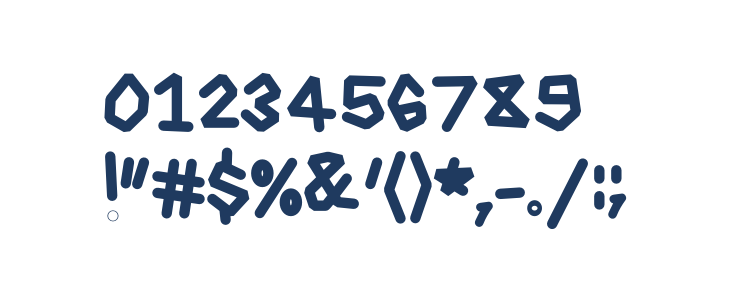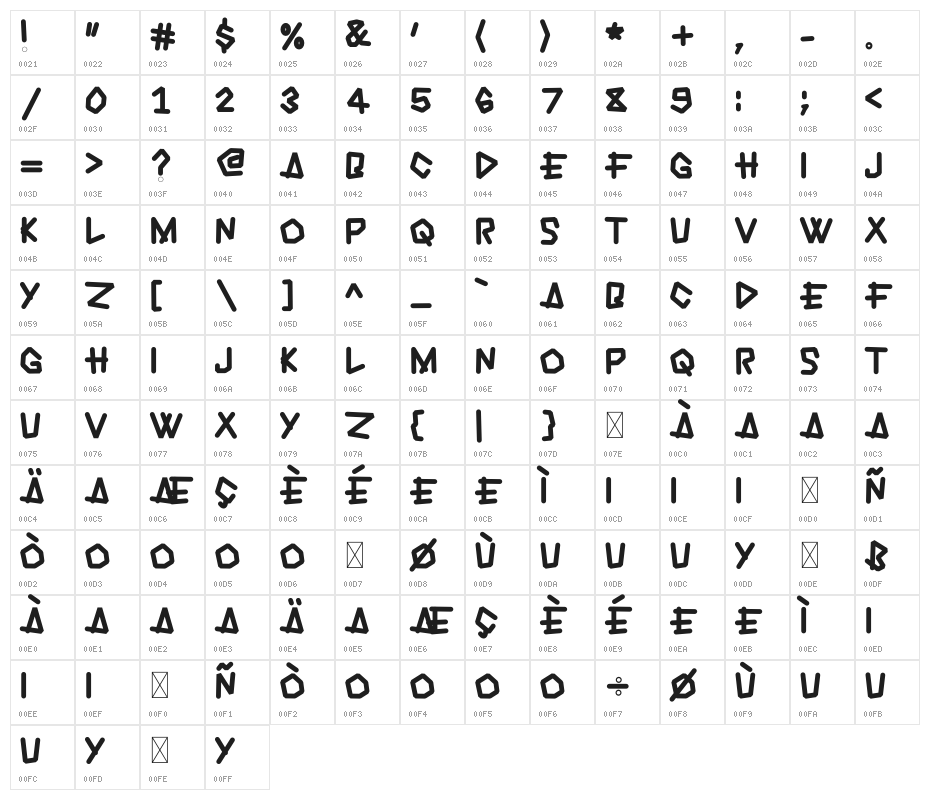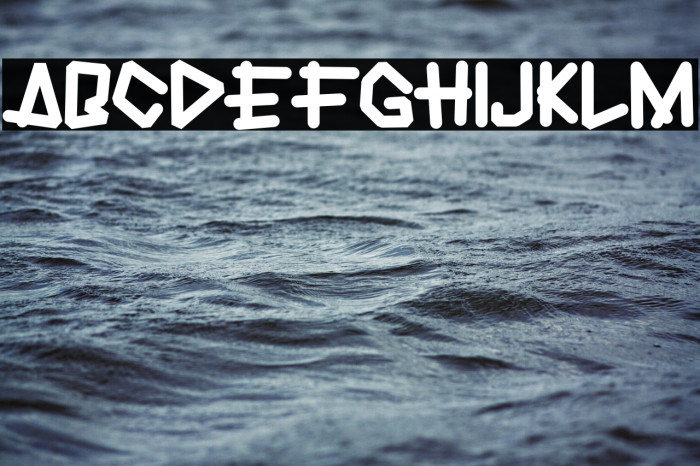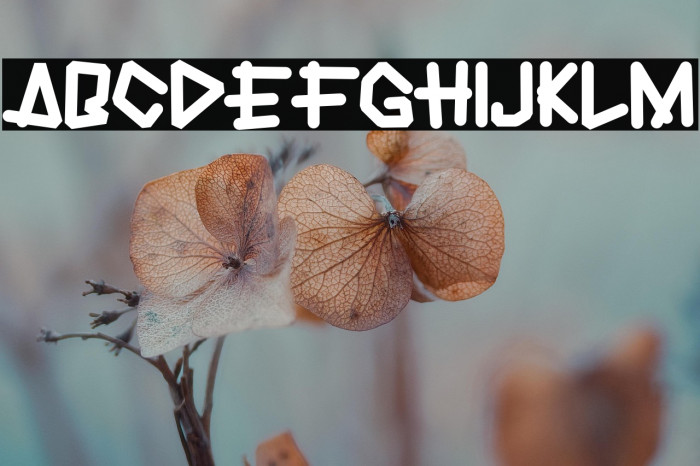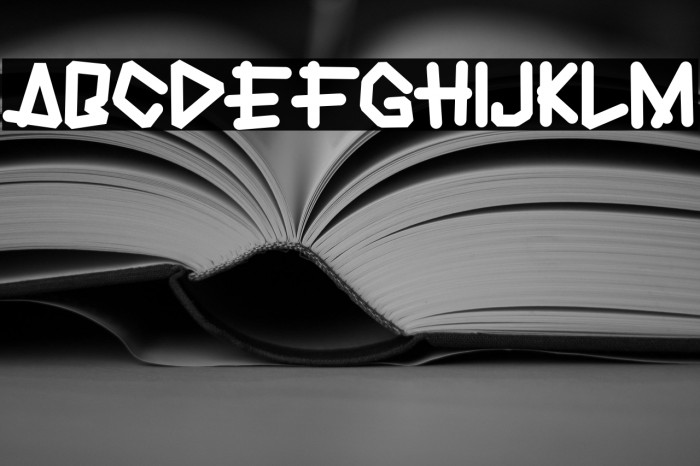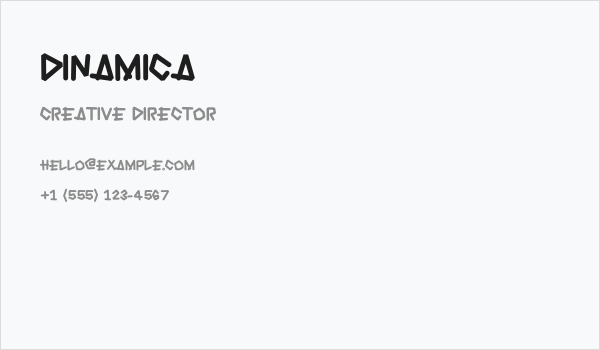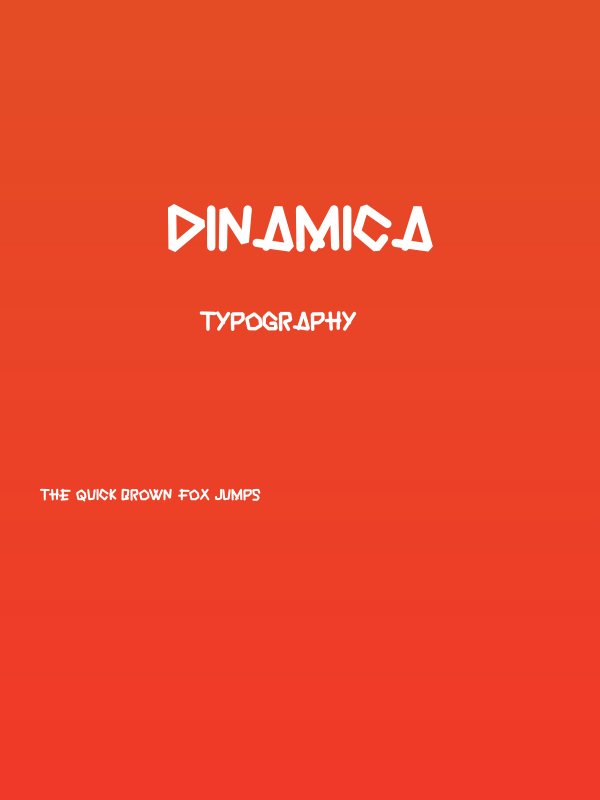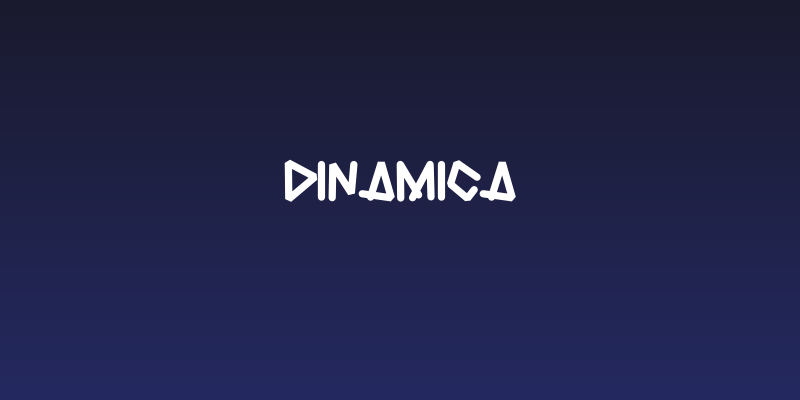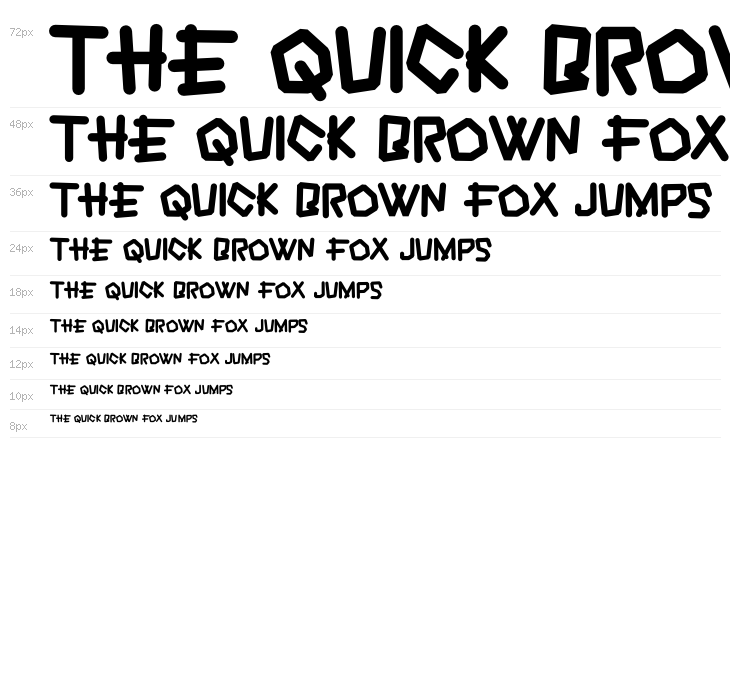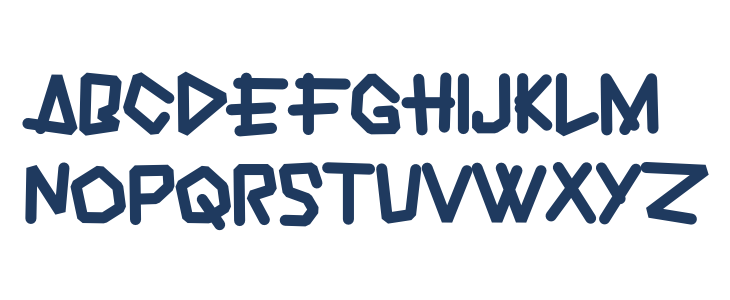
Dinamica Font
Dinamica Description
This font features a bold and dynamic style with a hand-drawn appearance. The characters are thick and slightly irregular, giving them a playful and energetic feel. The uppercase and lowercase letters maintain a consistent weight, while the numbers and special characters follow the same bold and expressive design. The strokes are uneven, adding to the informal and casual aesthetic. This font is ideal for projects that require a lively and eye-catching typeface, such as posters, headlines, or branding materials that aim to convey a sense of fun and creativity.
| Proposed Projects | Ideal for posters, headlines, branding, and creative projects. |